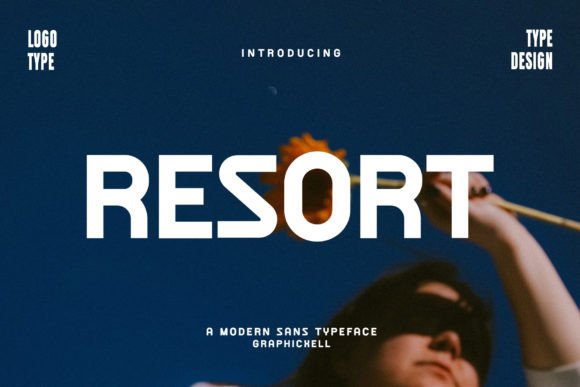
Dive into the world of Resort Font, the ultimate sans-serif typeface that exudes sophistication and charm. Crafted by the ingenious Graphicxell, this font family redefines elegance, making it the perfect choice for T-Shirt designs that demand attention.
With its sleek and modern curves, rounded edges, and balanced weight, Resort Font effortlessly captivates the eye. Its friendly and inviting aura makes it a versatile choice for both body and headline text, ensuring your designs resonate with a warmth that is both professional and approachable.
Whether you're a creative entrepreneur showcasing your latest fashion line or an individual seeking a font that elevates your personal projects, Resort Font has you covered. Its versatility knows no bounds, lending itself seamlessly to everything from eye-catching posters and social media graphics to sleek and stylish website designs.
With Resort Font, you'll discover a world of creative possibilities, unlocking your potential to create designs that leave a lasting impression. Dare to make a statement with this exquisite font, and watch as your designs flourish with newfound charm and sophistication.
Experience the Resort Font difference today, and let your creativity soar to new heights.